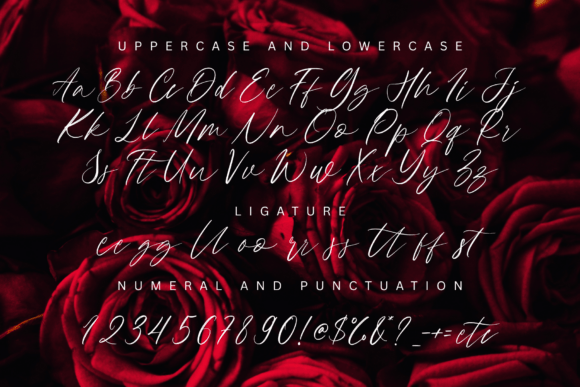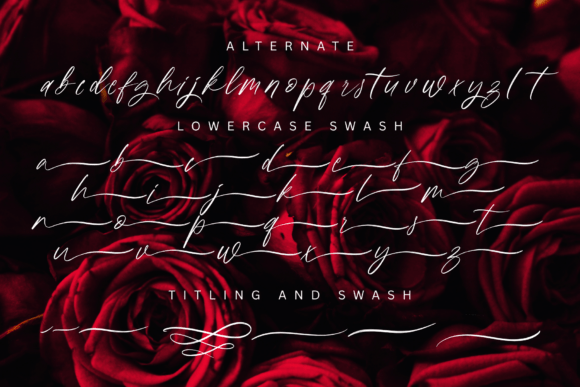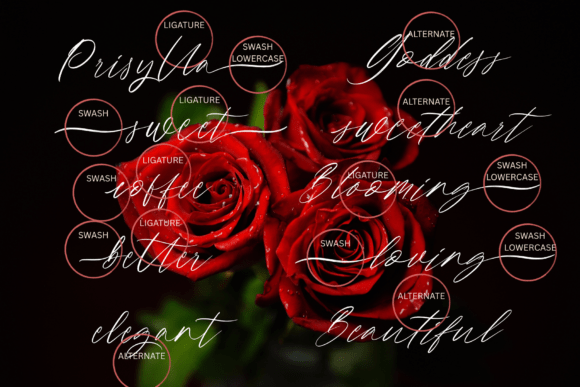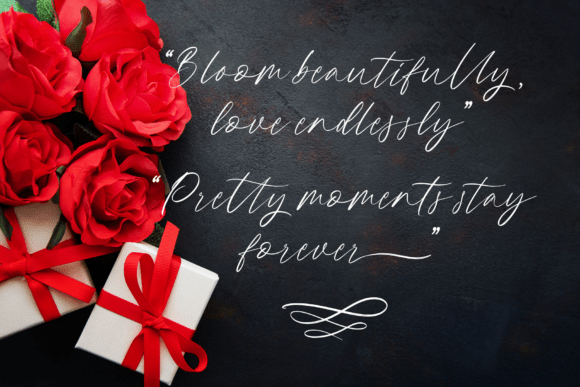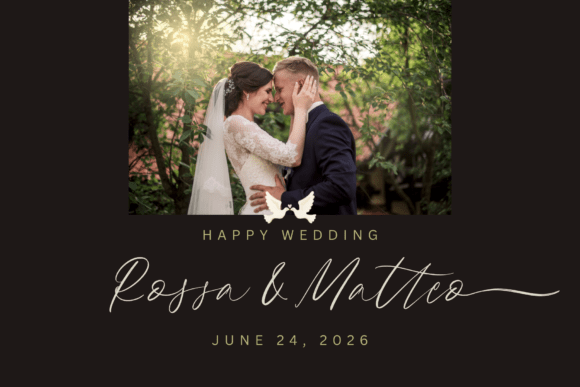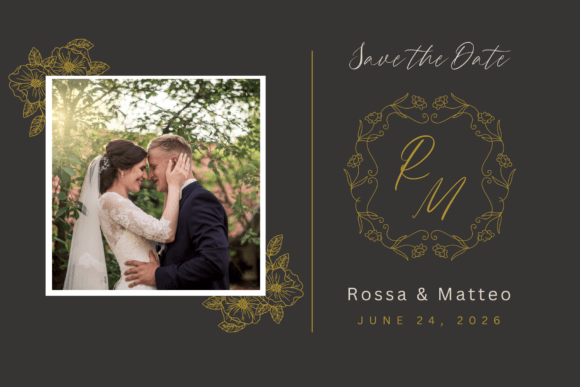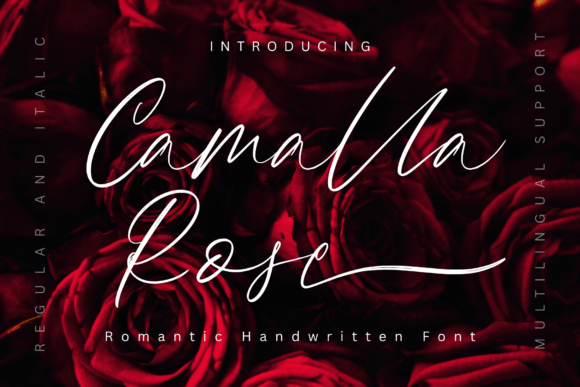
The Power of Handwritten Charm: Unlocking the Beauty of Camalla Rose Font
As I sat at my desk, surrounded by scribbled notes and half-finished projects, I found myself daydreaming about the perfect font to bring my latest design to life. It was then that I stumbled upon the enchanting Camalla Rose Font – a romantic handwritten script that seemed to whisper sweet nothings of elegance and sophistication.
Designed to evoke a sense of warmth and expressiveness, Camalla Rose Font is the perfect addition to any project seeking a touch of whimsy and charm. Whether it’s a wedding invitation, a beauty product label, or a social media post, this font brings a timeless and feminine look that stands out beautifully. For designers, Camalla Rose Font offers a valuable resource for creating unique and memorable designs that leave a lasting impression.
Camalla Rose Font Key Features
- Unique Characteristics: Elegant, cursive, and handwritten style with a touch of whimsy and romance
- Font Weight: Regular, Italic, Bold, and Bold Italic
Camalla Rose Font Review
Overall, I found the Camalla Rose font to be a beautiful and elegant script font ✨. Its flowing lines and delicate curves make it perfect for creating a whimsical and romantic atmosphere in any design. The font is ideal for projects that require a touch of femininity and sophistication.
- The font’s fluidity and organic feel ✨ make it a great choice for designs that require a natural, handwritten look.
- The wide range of weights and styles available allow for a high degree of customization and flexibility.
- The font is well-suited for a variety of projects, including wedding invitations, branding materials, and editorial content.
- The font may not be suitable for projects that require a bold or edgy aesthetic ⚠️.
- The font’s delicate nature can make it difficult to read at small font sizes.
Overall, I would recommend the Camalla Rose font to designers who are looking for a beautiful and elegant script font for their projects. While it may have some limitations, its versatility and customization options make it a valuable addition to any designer’s toolkit.
Tips for Getting the Most Out of the Camalla Rose Font
1. Use the Camalla Rose font for titles and headings to add a touch of elegance and sophistication.
2. Pair the Camalla Rose font with a clean and simple font for body text to create a balanced and harmonious design.
3. Experiment with different font sizes and styles to add visual interest and emphasis to your text.
2. Luxury branding and marketing materials.
3. High-end packaging and labels.
Alternatives to Camalla Rose Font for Designers
The Great Vibes Font is a beautiful, elegant script font that works well for creating a sense of luxury and sophistication. It’s perfect for use in branding, invitations, and other materials where a touch of class is desired.
Great Vibes Font has a similar feel to Camalla Rose Font, but with a more refined and polished look. While Camalla Rose Font has a more playful, whimsical feel, Great Vibes Font is more suited for formal or high-end designs.
The Carolyna Pro Font is a modern, elegant script font that’s perfect for use in branding, packaging, and other materials where a touch of sophistication is desired. It’s highly customizable and comes with a range of styles and weights.